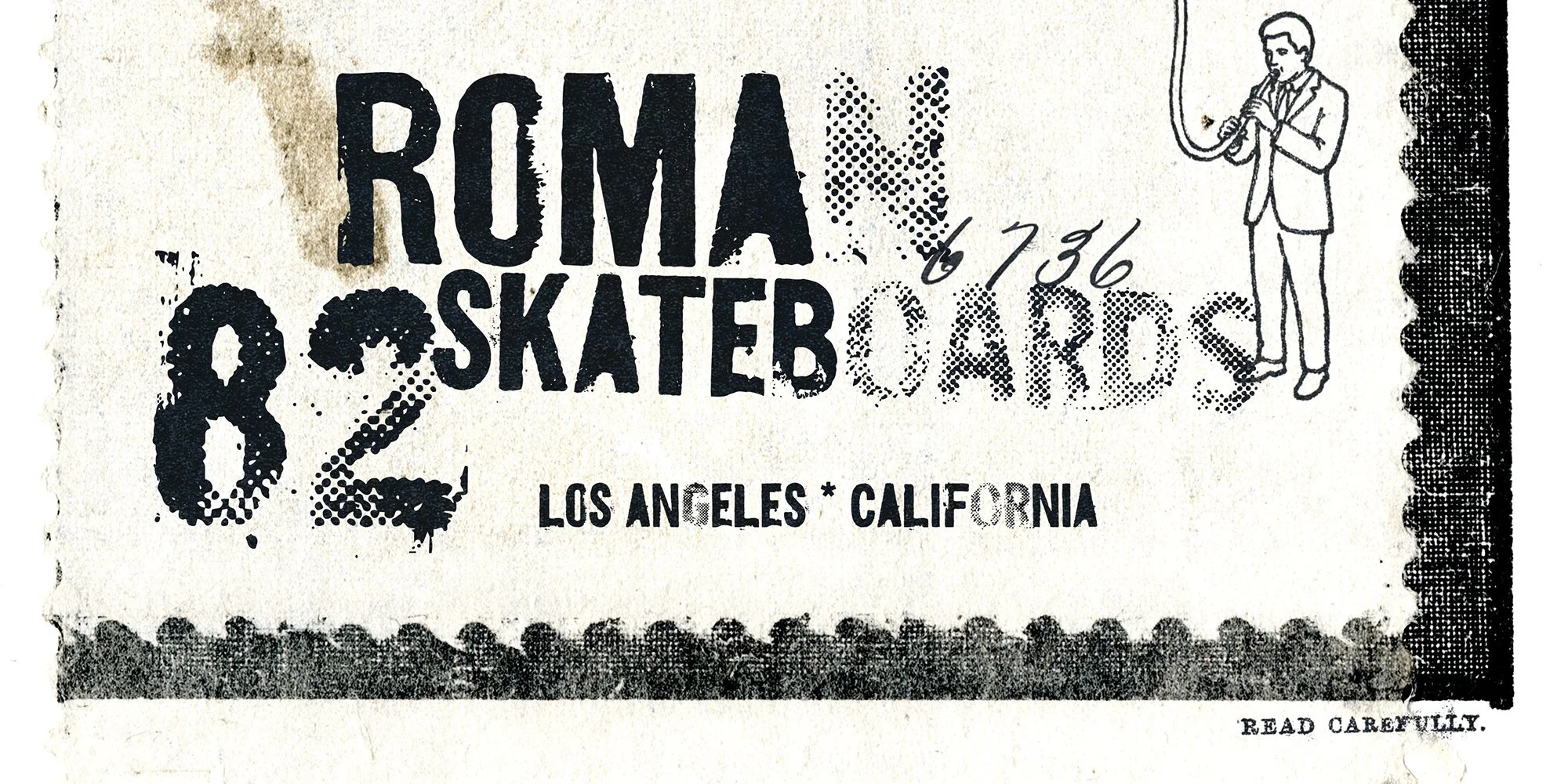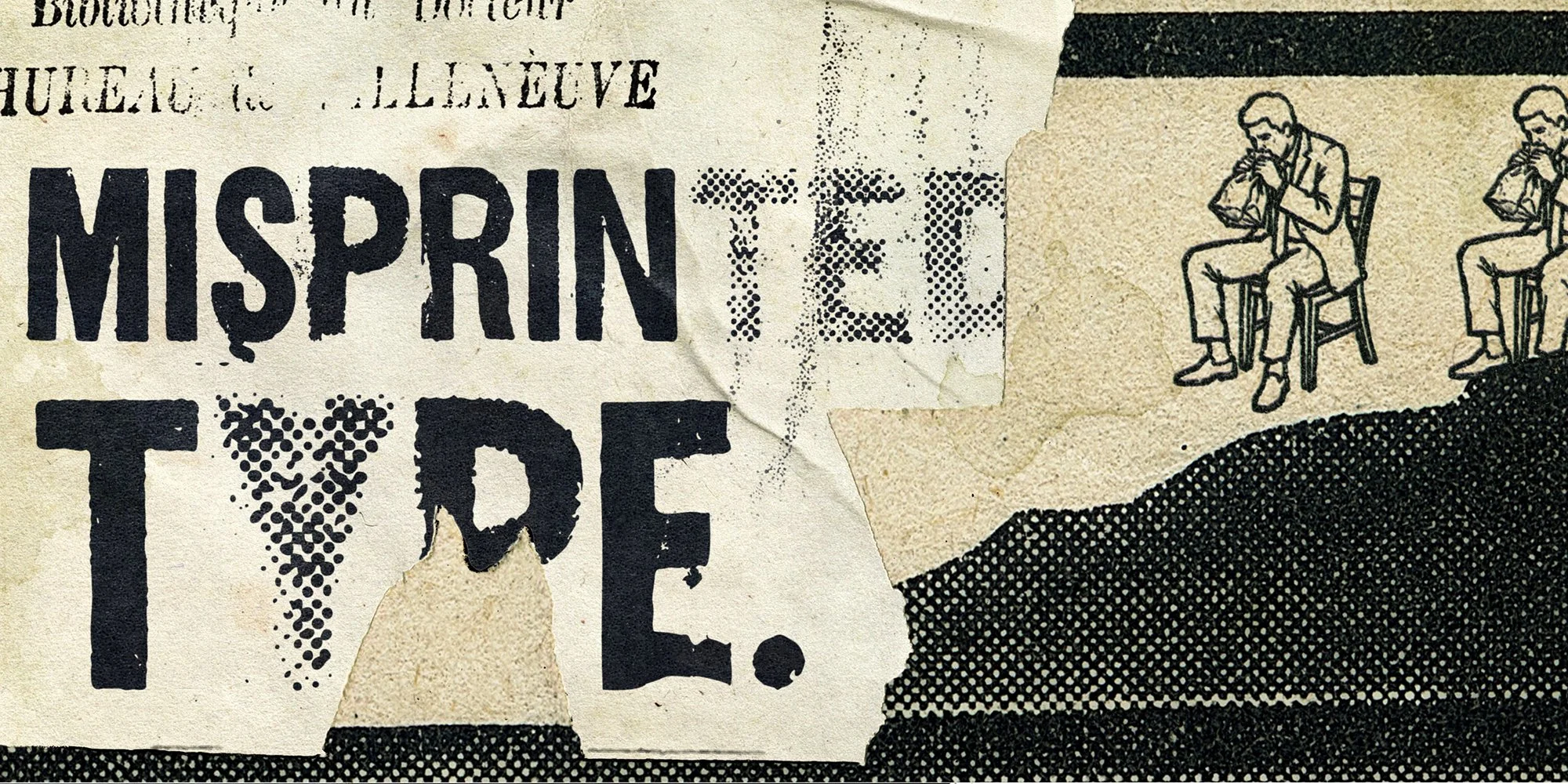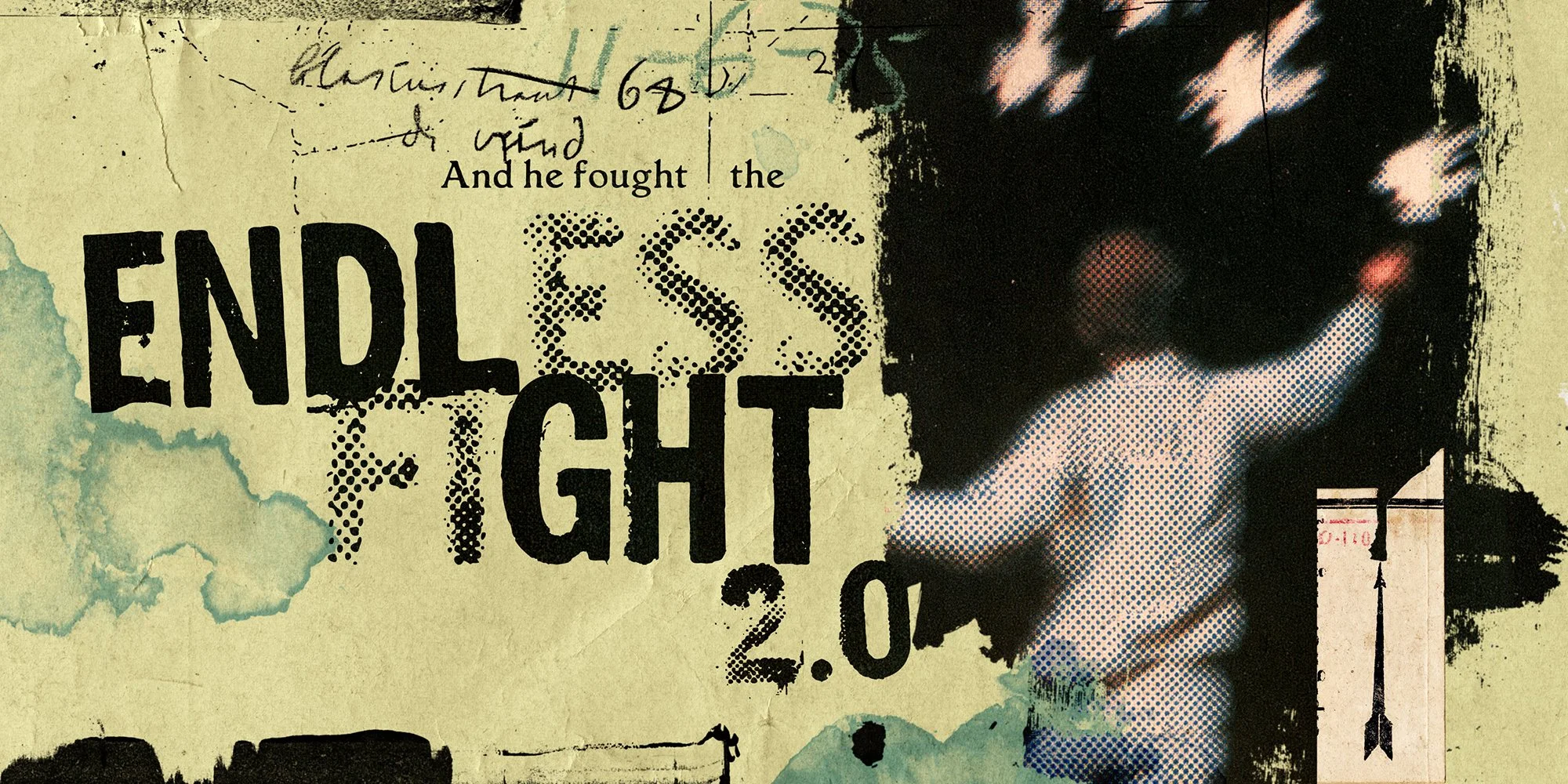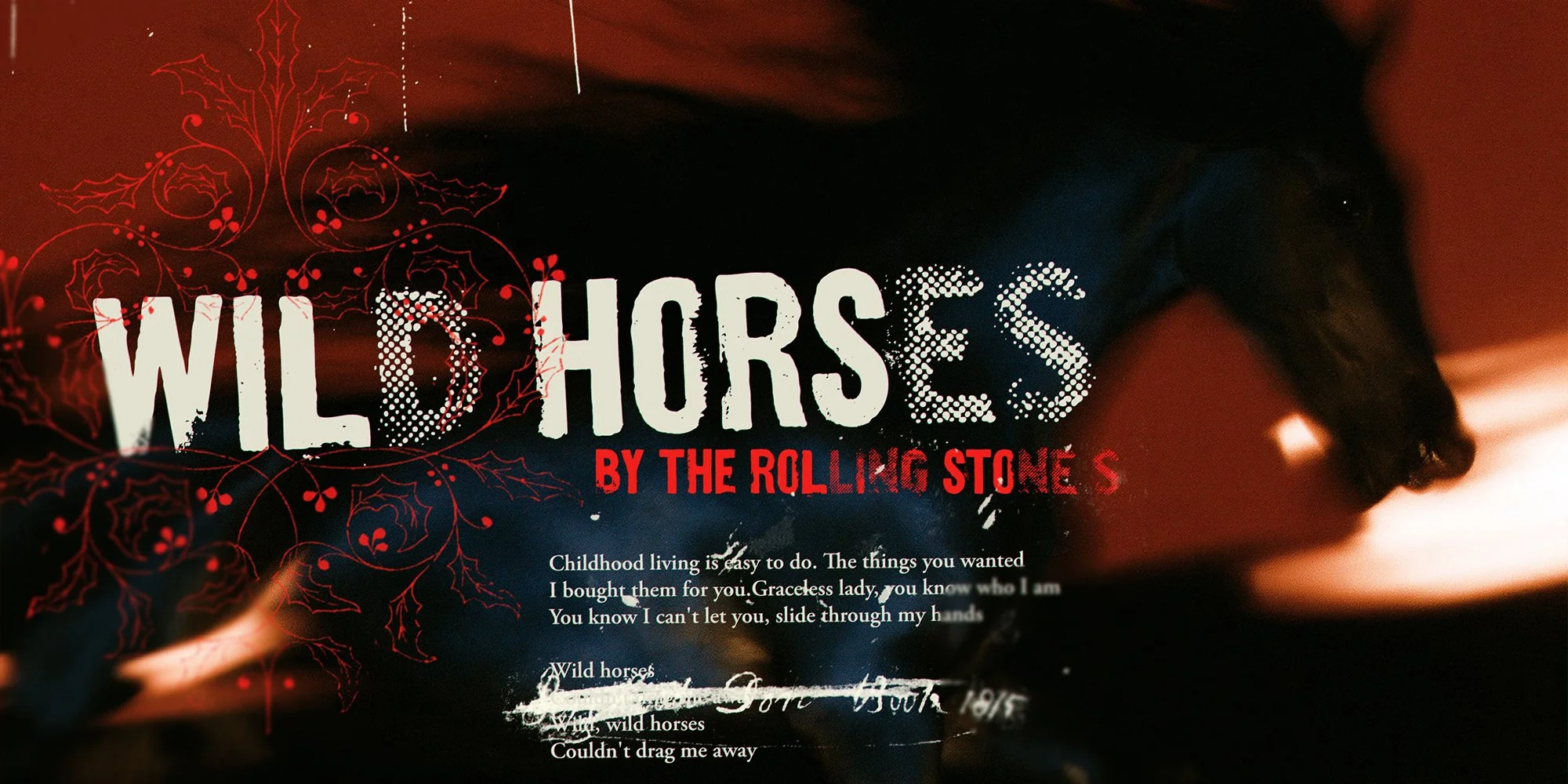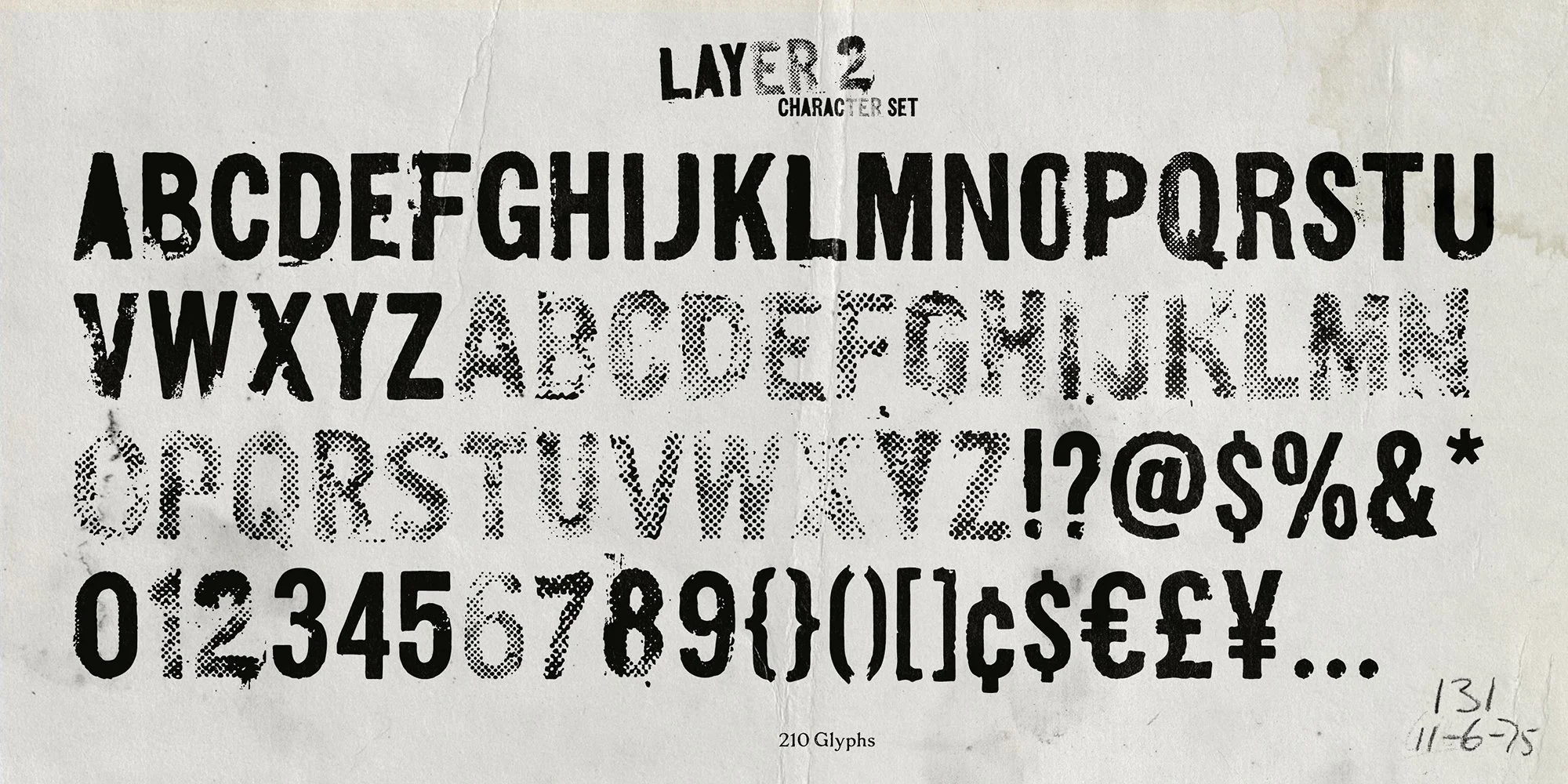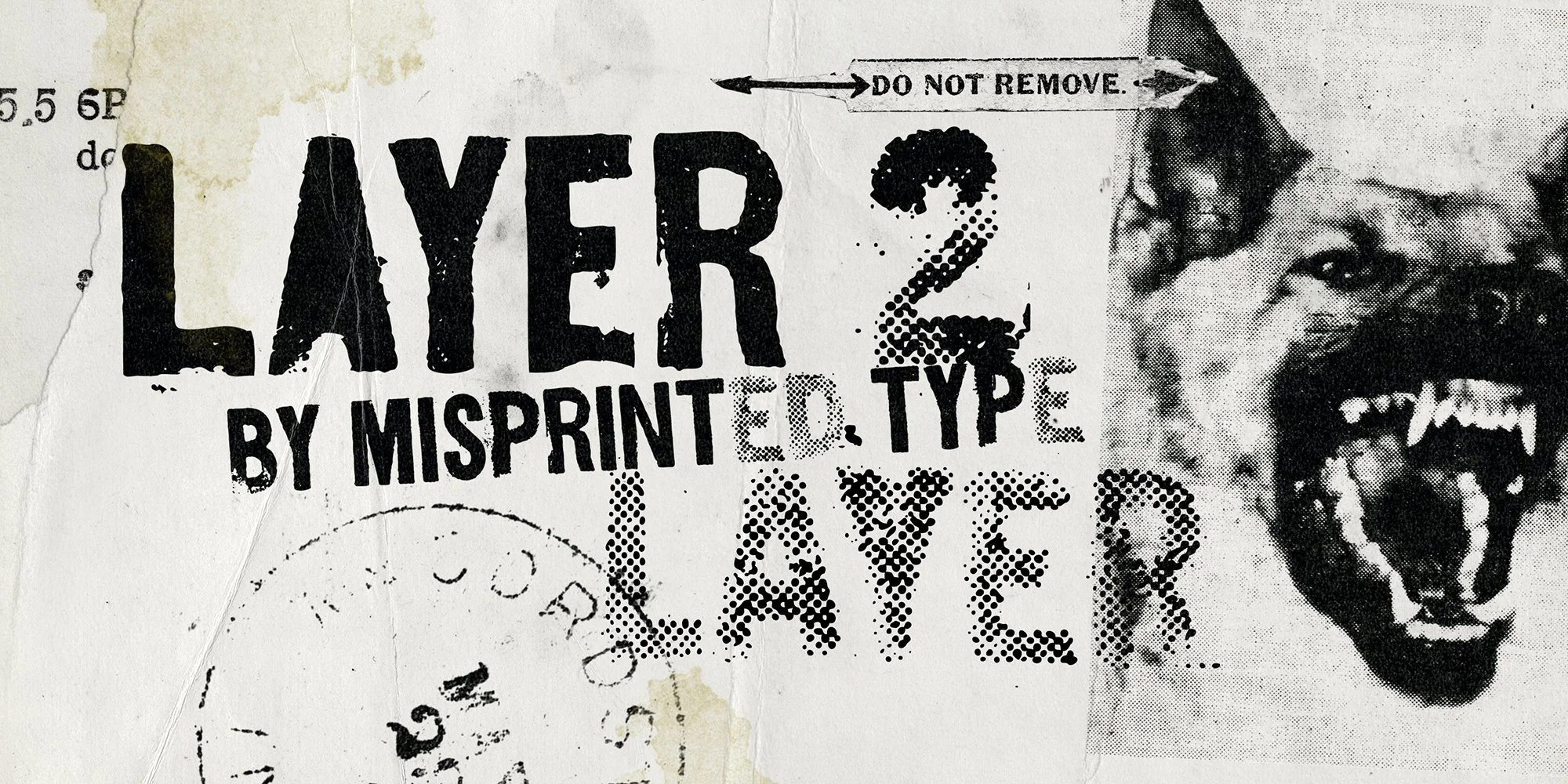
LAYER 2
Layer 2 is a distressed display typeface inspired by the rebellious spirit of the 90s grunge movement, a time when designers embraced imperfection and rejected the polished aesthetics of traditional graphic design. Drawing from vintage screen printing, worn photocopies, clogged halftones, and over-inked prints, Layer 2 transforms printing flaws into expressive letterforms full of texture, attitude, and personality.
The font includes two uppercase alphabets with distinct personalities. The first features heavily distressed characters, while the second recreates the look of clogged halftones, as if a screen print had gone wrong during production. Mixing both styles together creates an unpredictable rhythm and a layered grunge aesthetic that feels raw, authentic, and impossible to recreate with simple textures. Layer 2 includes 210 glyphs, giving you plenty of creative freedom while preserving its handmade spirit.
Whether you're designing posters, album covers, magazines, apparel, branding, or any project that demands a bold, unapologetic edge, Layer 2 captures the raw energy of 90s grunge and the beauty of imperfect printmaking.
LAYER 2 | Font designed by Misprinted Type